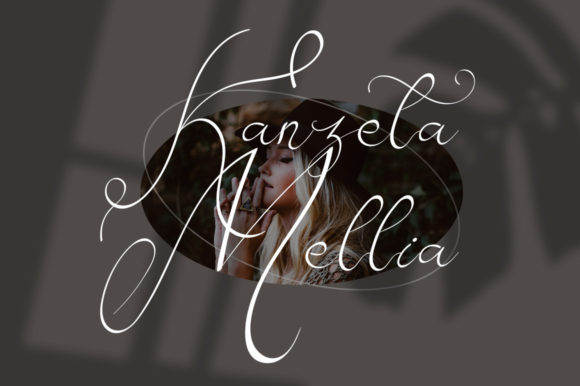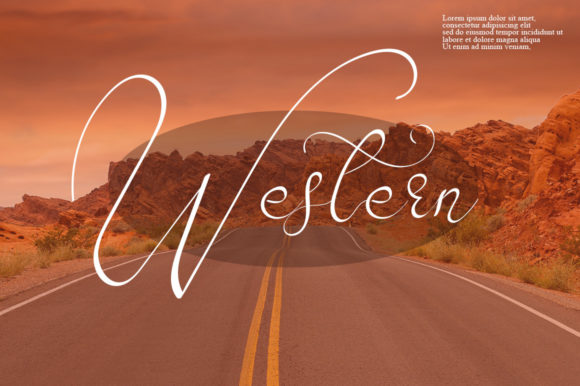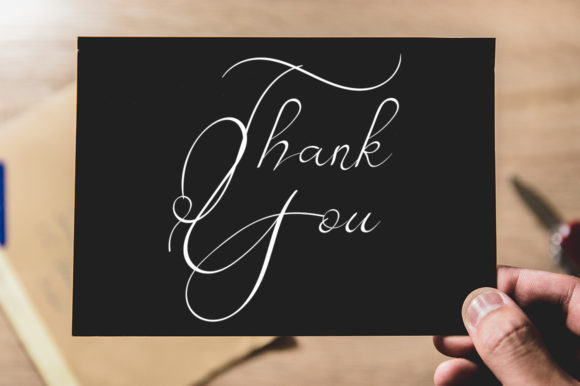
Discover the Charm of Derby Country Font: Elevate Your Designs with Elegance and Joy
In the world of typography, fonts play a crucial role in conveying the tone and personality of a design. For designers and crafters looking for a typeface that embodies freshness, cleanliness, and elegance, Derby Country Font is an exceptional choice. This beautiful and sweet font is versatile, making it perfect for a wide range of projects, from formal to informal, and everything in between.
The Essence of Derby Country Font
Derby Country Font stands out with its unique blend of modernity and classic charm. Its clean lines and elegant curves make it a stunning addition to any design. Whether you’re working on a branding project, a wedding invitation, a blog post, or a crafting project, this font is sure to impress. Its readability and aesthetic appeal ensure that your message is conveyed with style and sophistication.
One of the key advantages of Derby Country Font is its versatility. It seamlessly transitions between formal and informal settings, making it an invaluable asset for designers and crafters who work on a variety of projects. For formal projects, such as business branding or official event invitations, the font adds a touch of professionalism and elegance. On the other hand, for informal projects like personal blogs or DIY crafting tutorials, it brings a playful and joyful vibe.
Adding a Joyful Touch to Your Designs
Derby Country Font has a special ability to add an incredibly joyful touch to your designs. Its sweet and friendly appearance makes it perfect for projects aimed at a younger audience or for creating designs that evoke happiness and positivity. Imagine using this font for a children’s book, a party invitation, or a motivational poster. The font’s charm lies in its ability to connect with the viewer on an emotional level, making your designs more engaging and memorable.
Practical Applications for Designers and Crafters
For designers and crafters, finding a font that can be used across various projects is a treasure. Derby Country Font can be utilized in:
- Branding and Logos: Create a lasting impression with a clean and elegant logo that speaks to your brand’s values.
- Stationery and Invitations: Add a personal touch to your wedding invitations, business cards, or thank you notes.
- Digital Content: Enhance your blog posts, social media graphics, and website content with a readable and attractive font.
- Crafting Projects: Whether you’re making DIY tutorials or selling your crafts online, Derby Country Font can add a professional and charming touch to your presentations.
Why Choose Derby Country Font?
With so many fonts available, why choose Derby Country Font? The answer lies in its unique combination of elegance, versatility, and charm. Here are a few reasons why it stands out:
- Unique Aesthetic: Its fresh and clean design makes it stand out from more traditional fonts.
- Emotional Connection: The font’s sweet and joyful appearance helps create an emotional connection with the viewer.
- Wide Range of Applications: From formal branding to informal crafting projects, Derby Country Font adapts seamlessly.